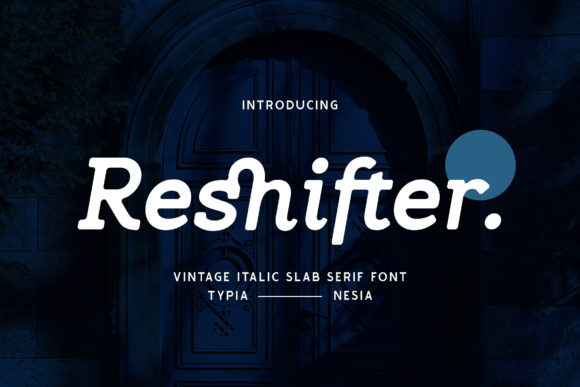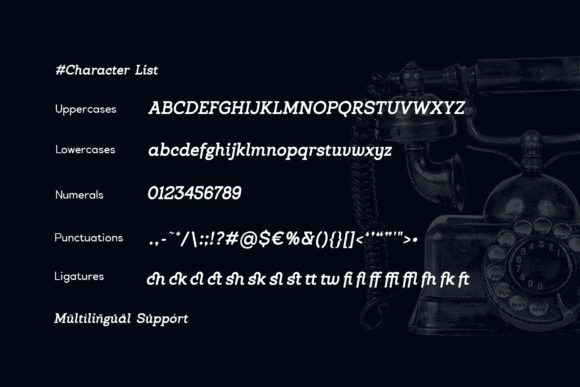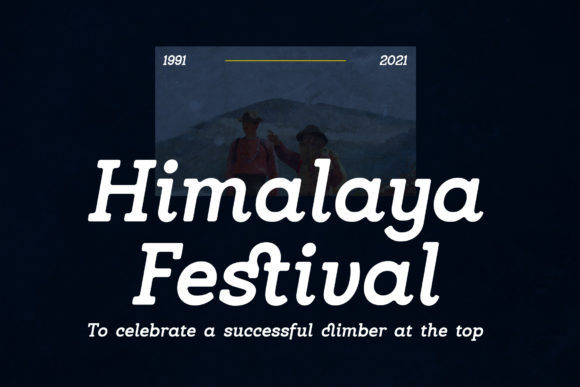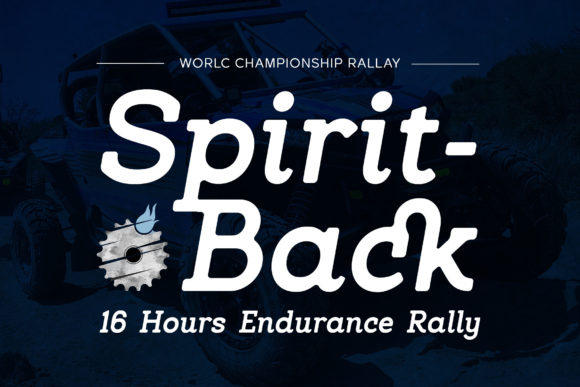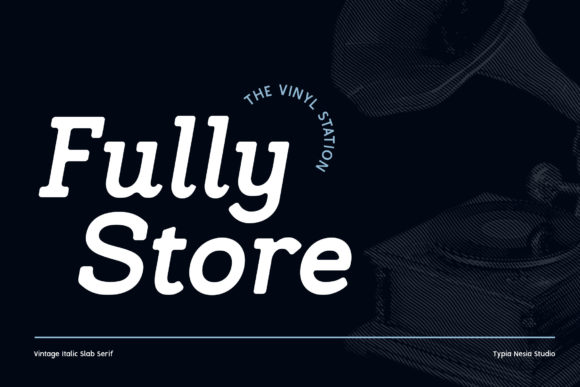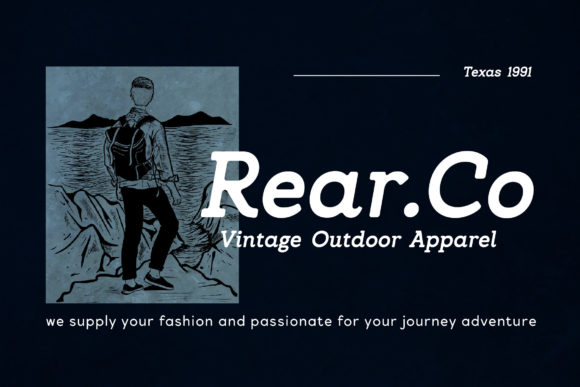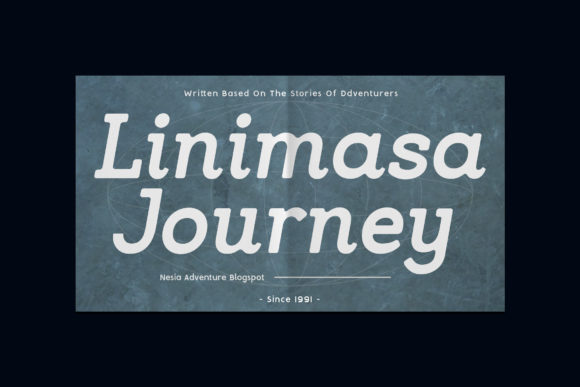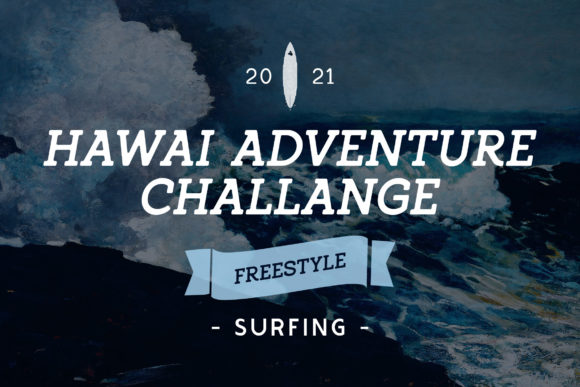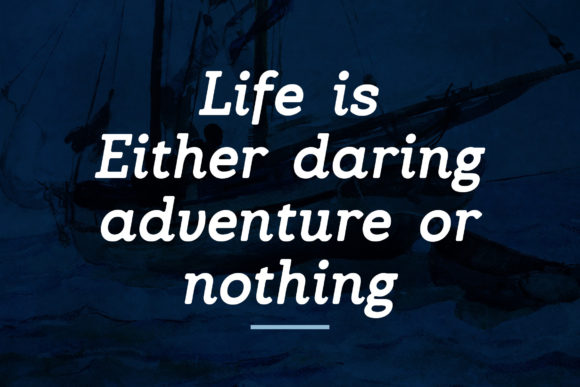
Reshifter Font
Introducing Reshifter, a cool and vintage-styled slab serif font that adds a touch of nostalgia and timeless appeal to your designs. With its unique characteristics, Reshifter becomes an incredible asset to your font library, ready to elevate any creation, regardless of the topic or theme.
Reshifter’s cool and vintage style sets it apart as a font that exudes character and charm. Its carefully crafted letterforms and nostalgic elements bring a sense of authenticity to your designs, instantly capturing attention and evoking a feeling of nostalgia. Whether you’re working on retro-themed projects, vintage-inspired branding, or any other creative endeavor, Reshifter becomes a key element that enhances the overall aesthetic.
No matter the topic or theme, Reshifter has the potential to elevate any creation. Its versatility allows it to adapt seamlessly to various design contexts, from logo design and packaging to posters, invitations, and more. Reshifter adds a unique touch that catches the eye and sets your creations apart from the rest.
One of the standout features of Reshifter is its ability to evoke a vintage feel. The font’s carefully designed details and stylistic elements transport viewers to a bygone era, creating a sense of nostalgia and authenticity. By incorporating Reshifter into your designs, you add a layer of depth and character that resonates with audiences.
Reshifter becomes an incredible asset to your fonts’ library, ready to enhance your design projects with its cool and vintage style. Its versatility ensures that it can be paired with other fonts or used on its own as the main typographic element. From digital designs to print materials, Reshifter adds a distinctive touch that captures attention and leaves a lasting impression.
In summary, Reshifter is a cool and vintage-styled slab serif font that becomes an incredible asset to your font library. Its ability to elevate any creation, regardless of the topic or theme, makes it a versatile and invaluable typographic choice. Let Reshifter be your go-to font, infusing your designs with a sense of nostalgia, authenticity, and timeless appeal.